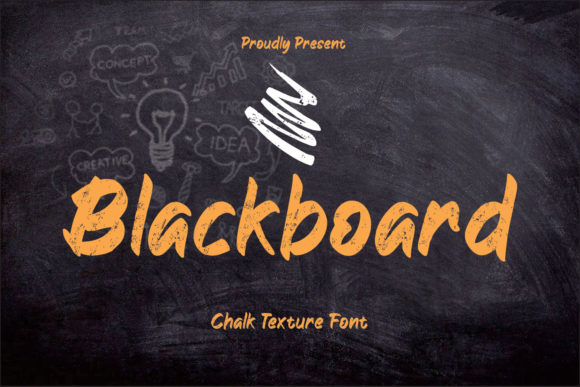
The Charm of Blackboard Font: A Designer’s Best Friend
I’ll never forget the time I was working on a project for a client who wanted a font that would make their brand stand out. I had tried countless fonts, but none seemed to fit the bill. That was until I stumbled upon the Blackboard font. It was love at first sight! The classic handwritten look was exactly what I needed to bring my client’s brand to life.
Blackboard is a timeless font that has been a favorite among designers for years. Its unique, handwritten look makes it perfect for a variety of design projects, from bold headlines to creative crafts. In this article, we’ll take a closer look at what makes Blackboard font so special and how you can use it to take your designs to the next level.
What I Love About Blackboard Font
• ✨ Versatility: Blackboard font looks outstanding in any context, whether it’s being used on busy backgrounds or as a standalone headline.
• ✅ Ease of use: This font is incredibly easy to read, even at small sizes.
• 💕 Aesthetic appeal: The classic handwritten look is both charming and sophisticated.
While Blackboard font is an excellent choice for many design projects, it’s not without its quirks. For example:
• 🤔 Limited use in formal designs: While Blackboard font is perfect for creative projects, it may not be the best choice for formal designs, such as business reports or academic papers.
• ⚠️ Overuse: Using Blackboard font too much can make your design look cluttered and overwhelming.
If you love Blackboard font, you may also want to consider the following similar fonts:
• Pacifico: This beautiful script font has a similar handwritten look to Blackboard font, but with a more elegant feel. Use it for designs that require a touch of sophistication.
• Great Vibes: This fun and casual font has a similar energetic feel to Blackboard font, but with a more modern look. Use it for designs that require a youthful vibe.
• Alex Brush: This lovely script font has a similar classic feel to Blackboard font, but with a more refined look. Use it for designs that require a touch of elegance.
• Kingthings: This bold and playful font has a similar energetic feel to Blackboard font, but with a more edgy look. Use it for designs that require a bold statement.
The Backstory of Blackboard Font
Blackboard font was inspired by the classic chalkboard typography of the past. Its creator, a talented type designer, wanted to capture the essence of handwritten writing on a blackboard. The result is a font that’s both nostalgic and timeless.
Q: What is the best way to use Blackboard font?
A: Blackboard font is best used as a headline or title font, but it can also be used for body text in small doses.
Q: Is Blackboard font suitable for digital use?
A: Yes, Blackboard font is optimized for digital use and looks great on screens.